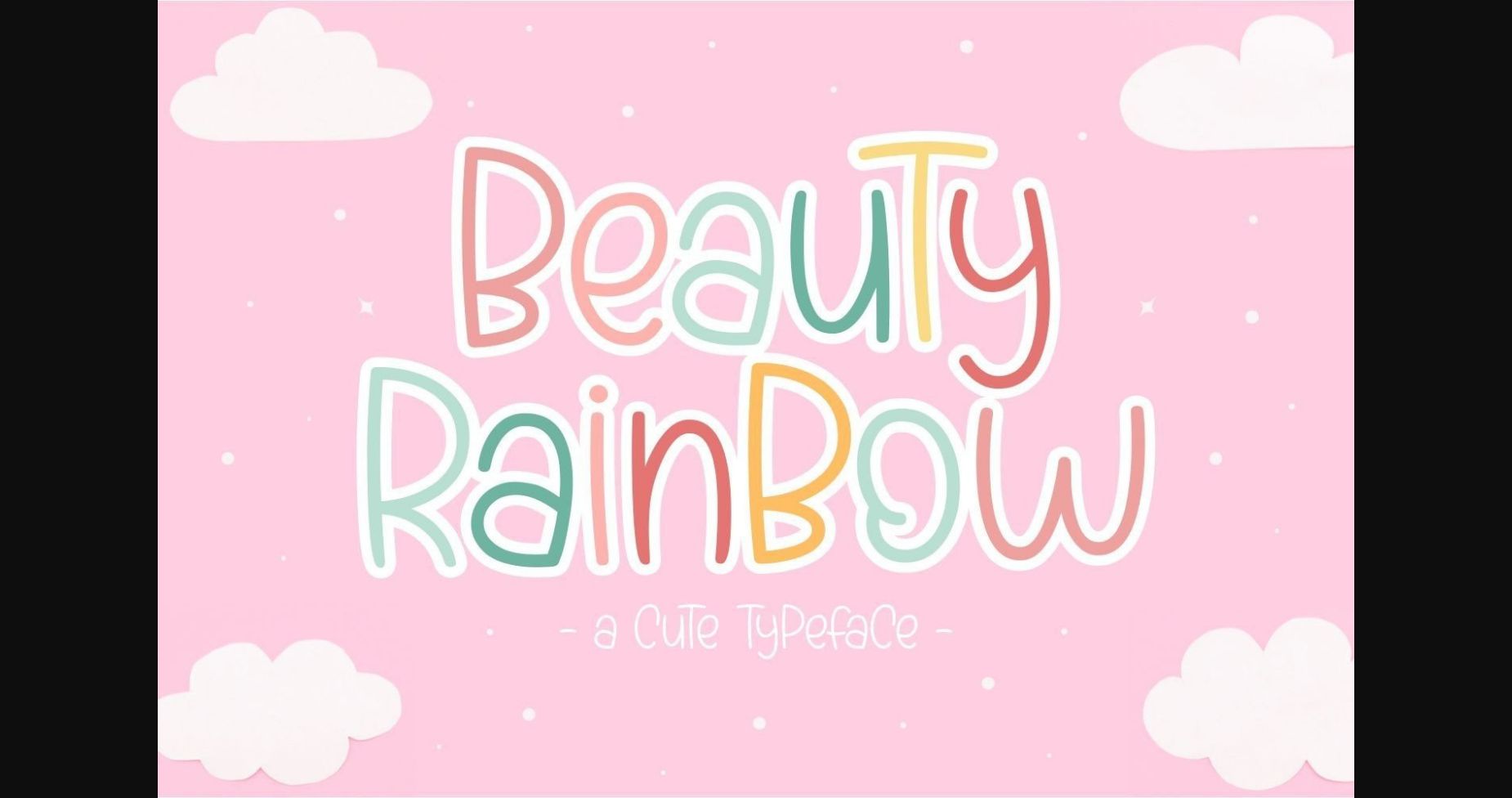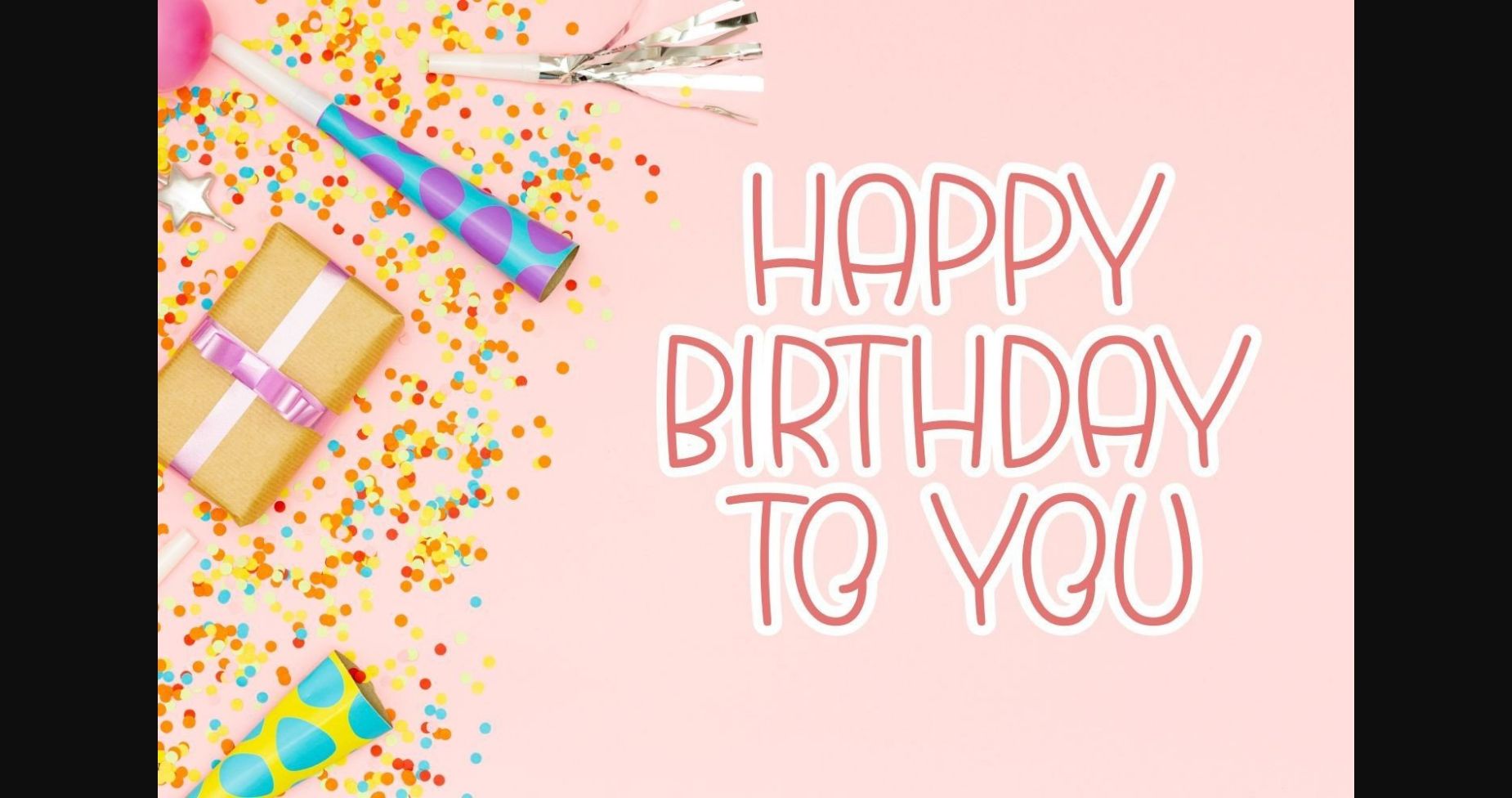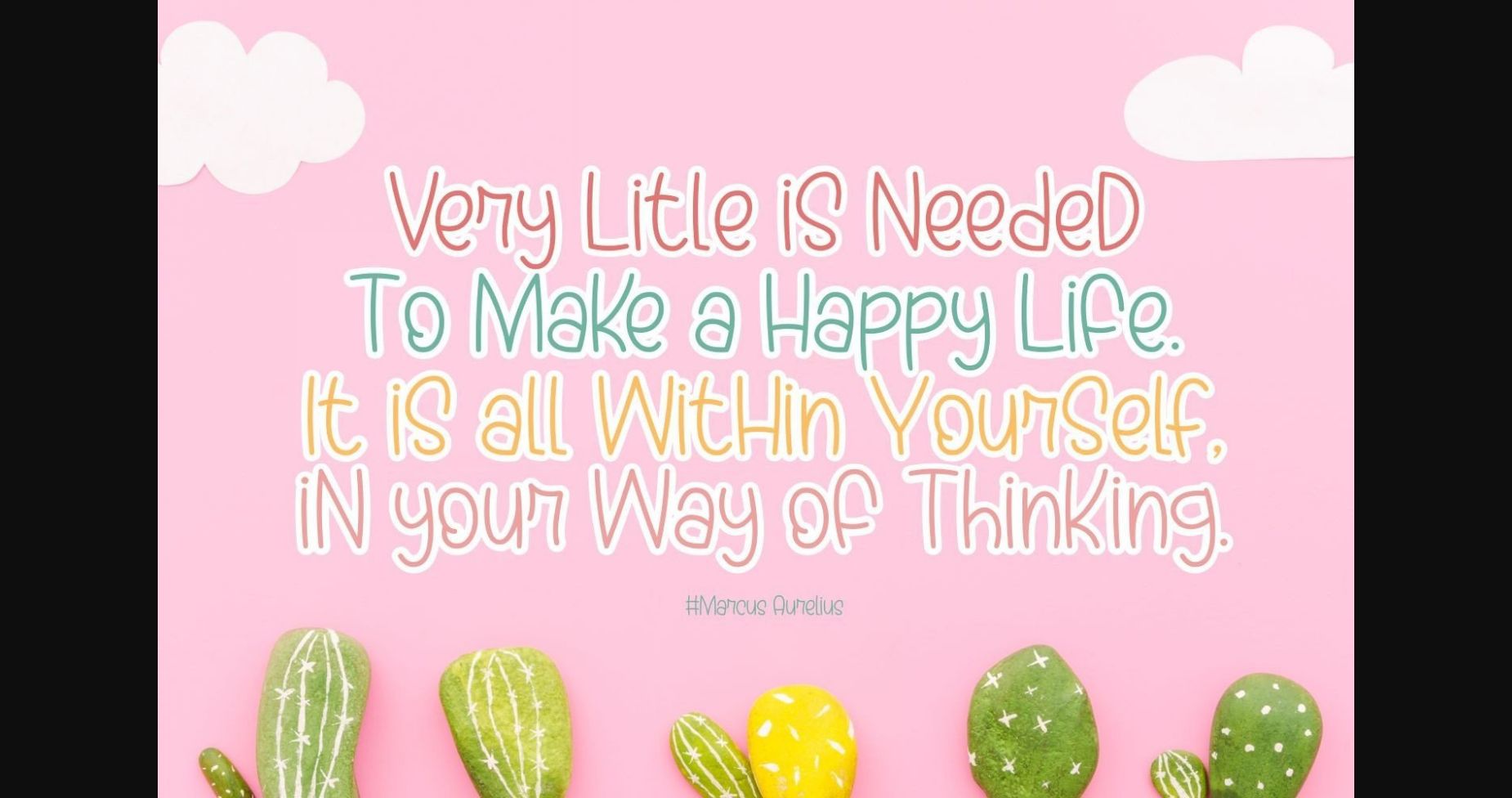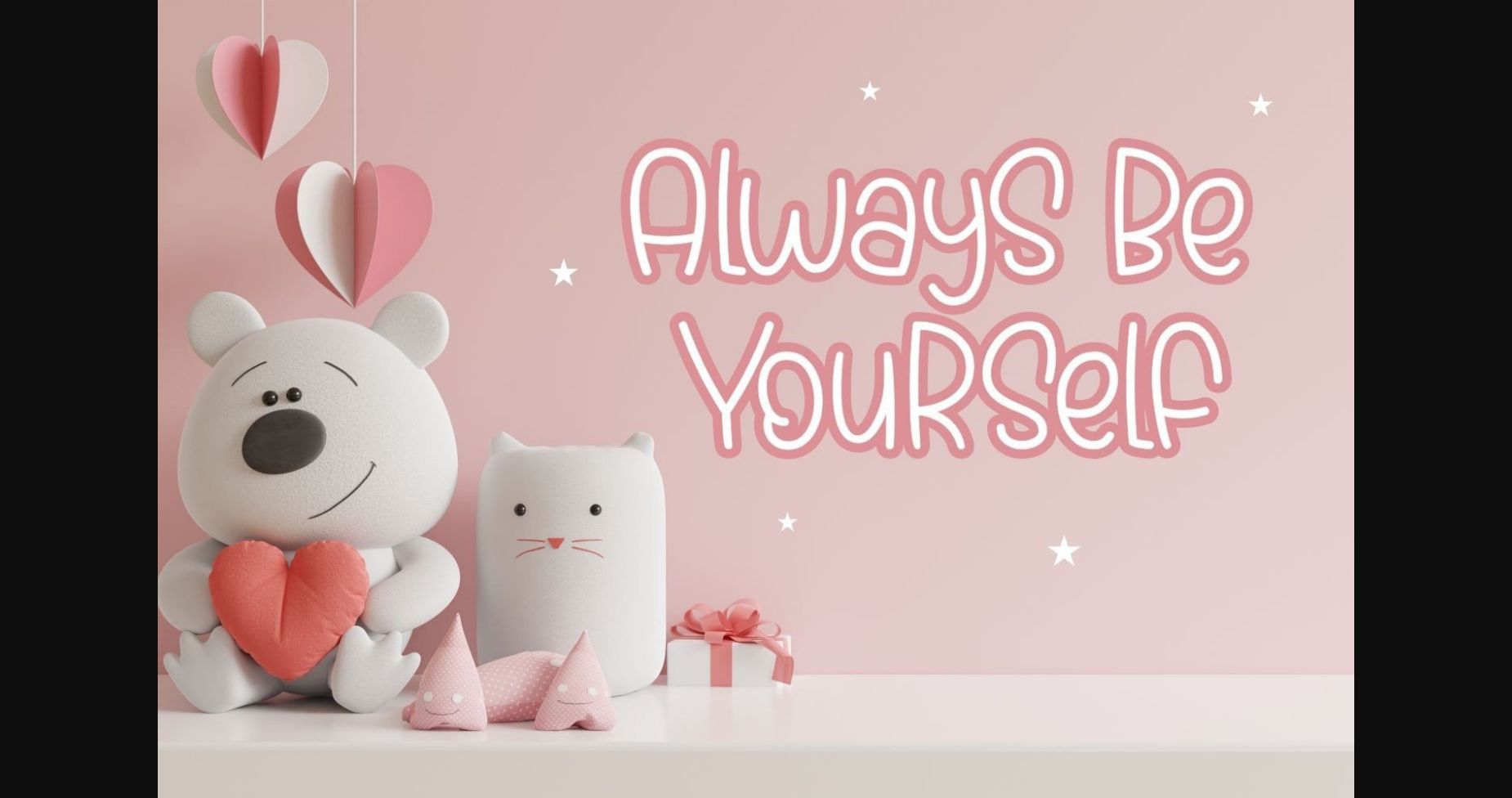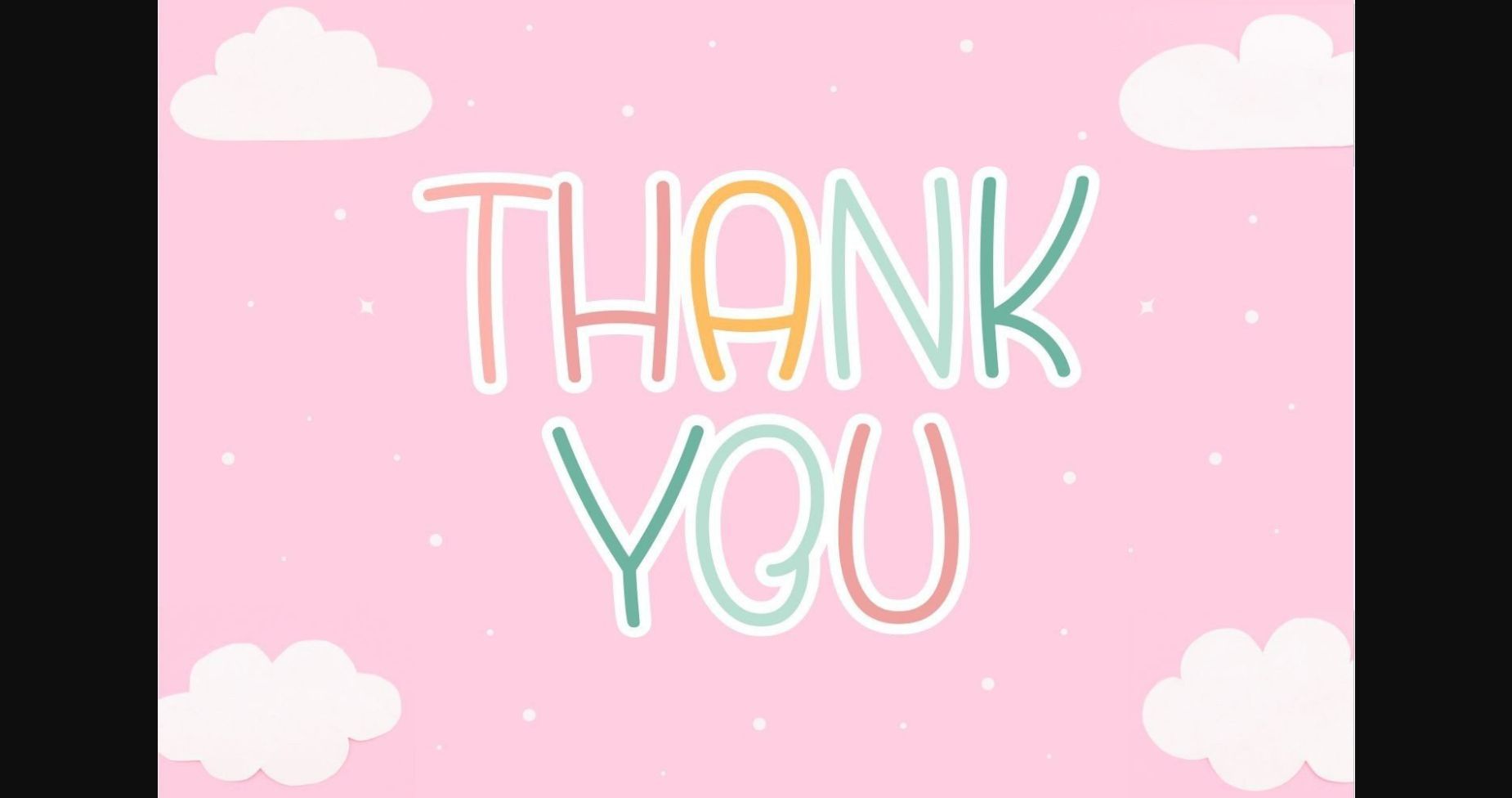
Beauty Rainbow Font
About Beauty Rainbow Font
Beauty Rainbow is a fun, cute, and cheerful sans serif font. The whimsical characters are sure to add joy and a playful note to your creative design projects. Bring your ideas to life with this adorable typeface!